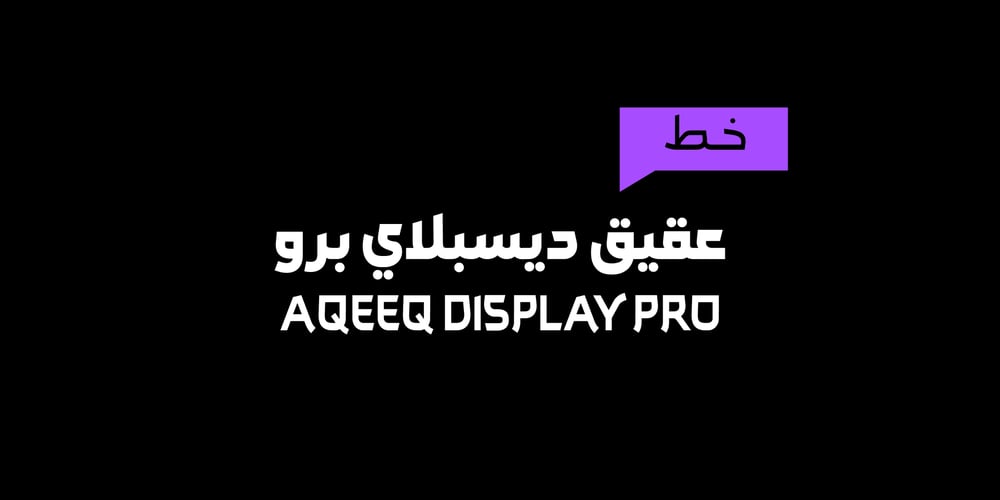
Aqeeq Display Pro Font Family was designed by Ali Almeethali and published by GHEEN Studio. Aqeeq Display Pro contains 9 styles and family package options. Aqeeq Display Pro, the modern version. Inspired by Arabic fonts, modern and flexible, for titles and prints, featuring elongated letters and multiple languages Latin, Arabic and their derivatives.